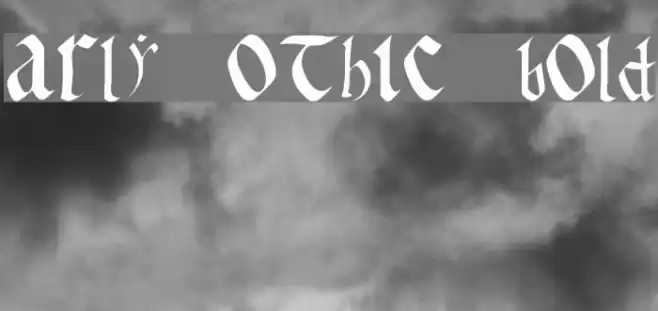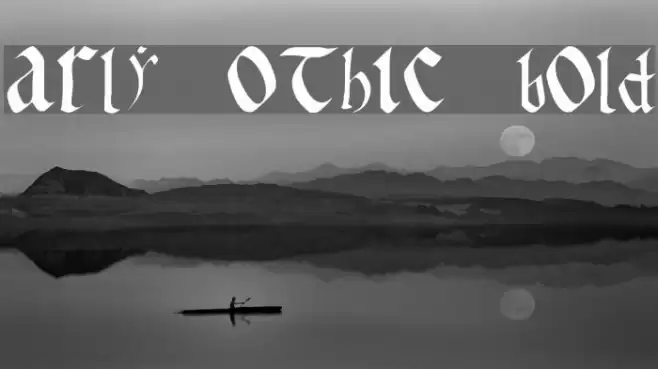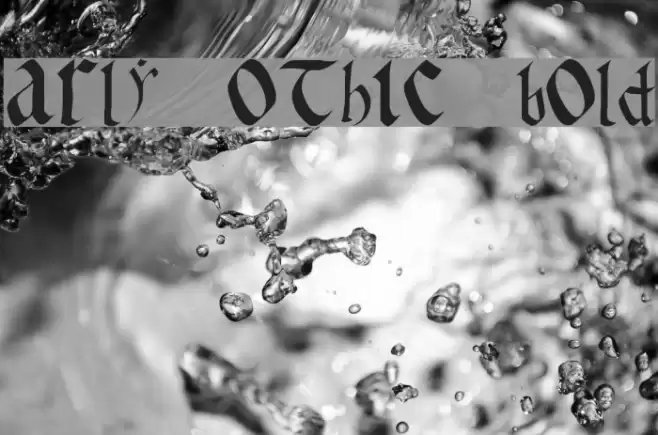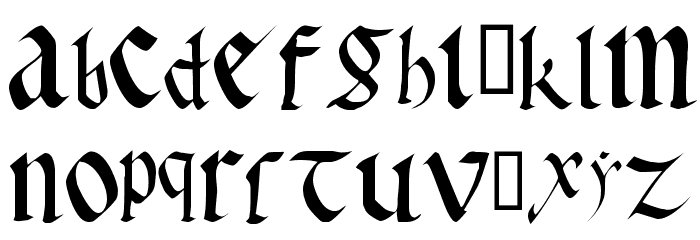
Early Gothic bold Font
Early Gothic bold Description
This font exhibits a classic Gothic style with bold, dramatic strokes and intricate detailing. The uppercase letters are characterized by sharp angles and pointed edges, giving them a striking and authoritative appearance. The lowercase letters maintain a consistent style, with elegant curves and a slightly condensed form that enhances readability. The font's overall design is reminiscent of medieval manuscripts, making it ideal for projects that require a historical or traditional aesthetic. The bold weight of the font adds to its commanding presence, making it suitable for headlines and titles that need to stand out.
A bold, Gothic-style font with sharp angles and intricate detailing from Gothic fonts.
- Proposed Projects: Ideal for historical documents, book covers, posters, and any design requiring a medieval or traditional aesthetic.
- Overall Style: Vintage